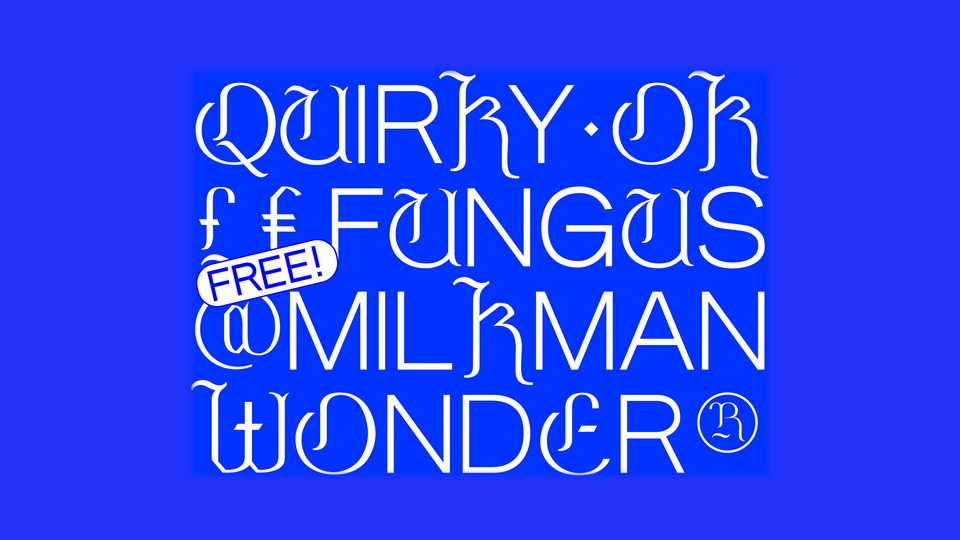
Download Milkman font, a display typeface, combining sans serif Fabio and blackletter Blocus. With its unique look Milkman is perfect for editorial use and typographic artworks.